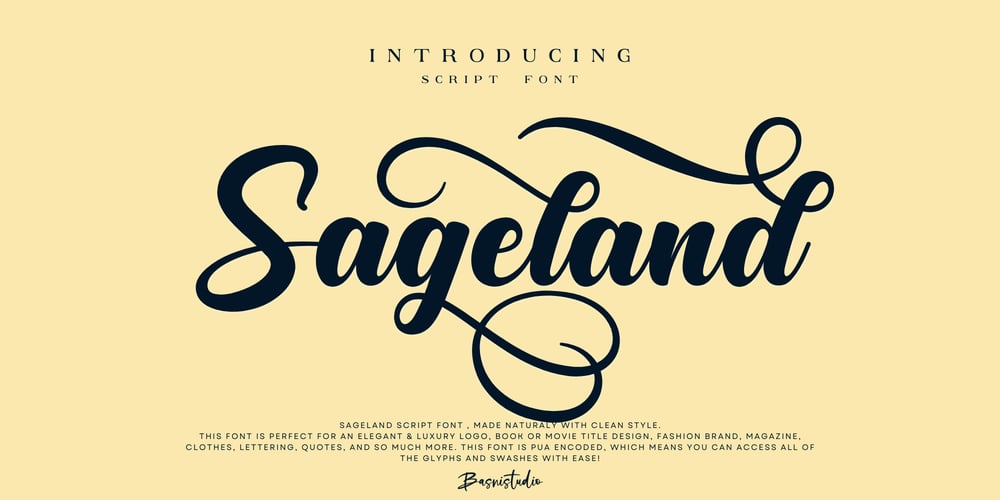
Sageland Font Family was designed by Bery Arisandi and published by Basnistudio. Sageland contains 1 styles and family package options. Introducing Sageland Script Font , made by Naturaly Brush & Clean Style.This Font is perfect for an elegant & luxury logo, book or movie title design, fashion brand, magazine, clothes, lettering, quotes, and so much more. This font is PUA encoded, which means you can access all of the glyphs and swashes with ease!What’s include: Sageland Script Font Swashes Alternates Ligatures Multilingual Support ( Support for 90 languages ) Thank You Very Much